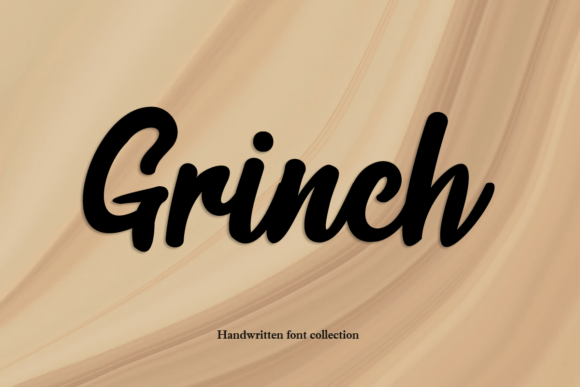
Add elegance and class to your creative projects with the Grinch font. This lovely and delicate script font was specially crafted for designers who want a beautiful and refreshing look. Its graceful style brings sophistication to any design.
The Grinch font is ideal for branding, invitations, logos, social media, and more. Its flowing curves and balanced strokes give your projects a polished and stylish appearance. Whether you need a classy script for headlines or decorative text, this font fits perfectly.
Each character in the Grinch font is carefully designed to combine beauty with readability. This ensures that your work looks professional without sacrificing clarity. It is a versatile font that adapts well to many design needs.
Despite its delicate design, the Grinch font remains highly readable at various sizes. Whether used for bold titles or subtle accents, it enhances your work with style and grace.
Using this font will help your designs stand out with a refined and memorable aesthetic. If you want your projects to have an elegant and fresh feel, the Grinchfont is an excellent choice.
In summary, the Grinchfont fits many creative projects. From branding and invitations to social media and logos, it adds beauty and sophistication. Download it today and create stunning, elegant designs with this delicate script font.